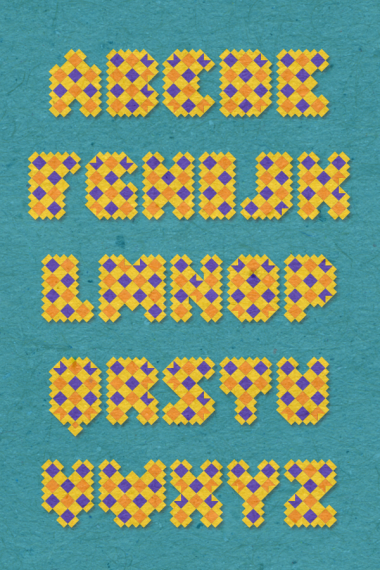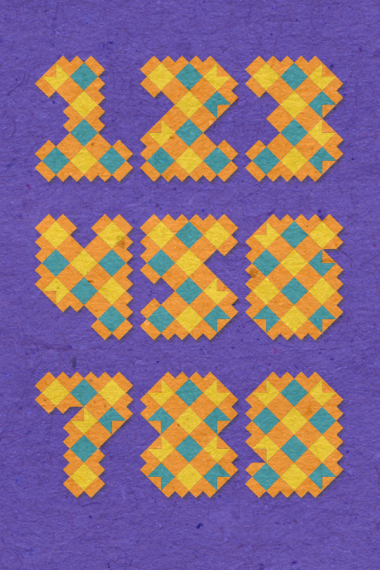
Very funny font and excellent samples, as usually! I love this patchwork style!
As simple as the design is, it gives out quite a beautiful format to each letter.
Your samples really express the beauty of this design!
Nice work - nice samples.